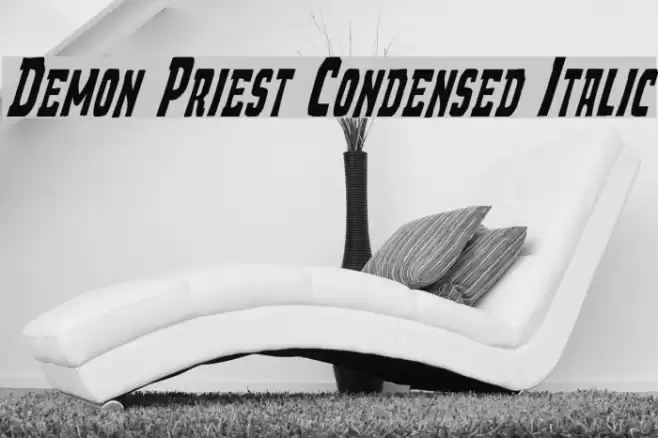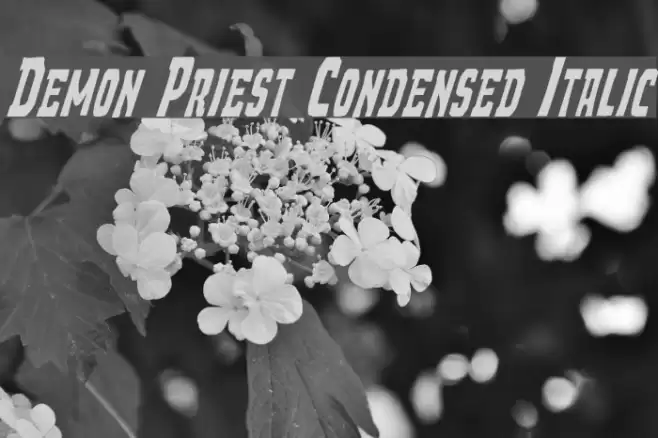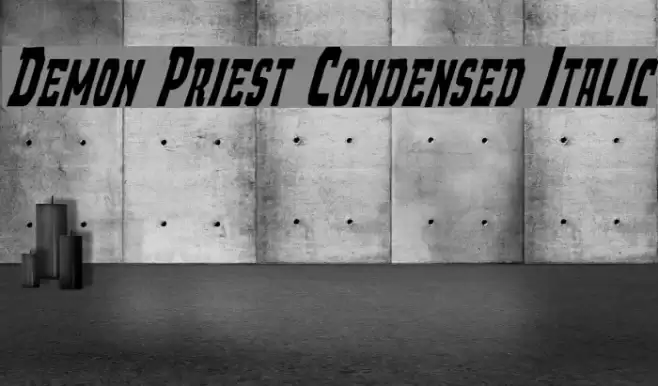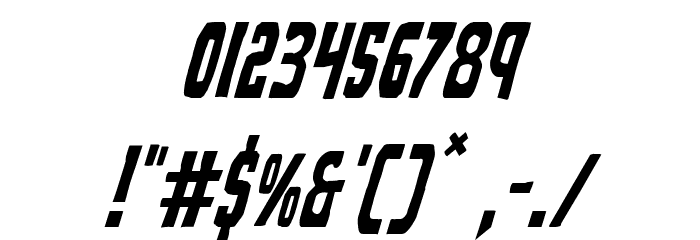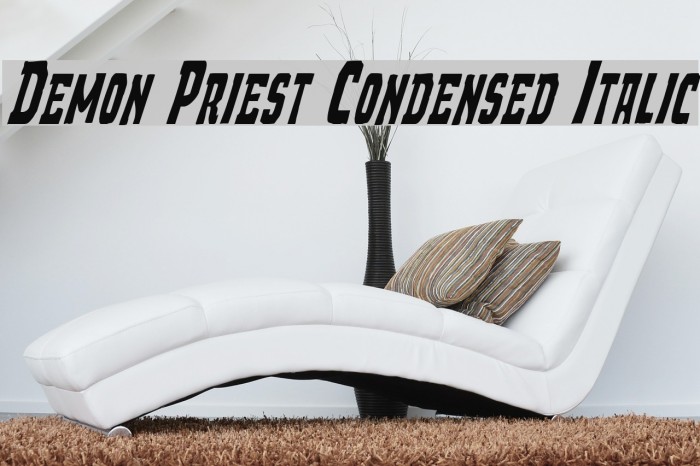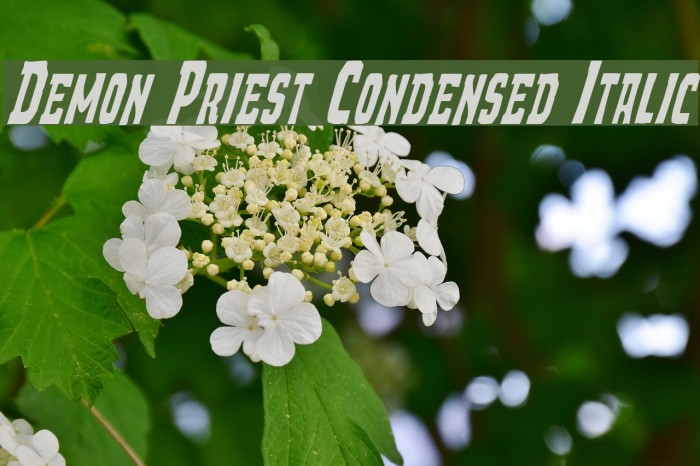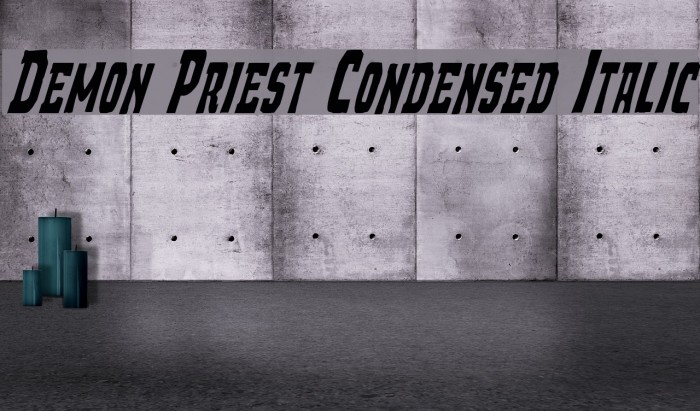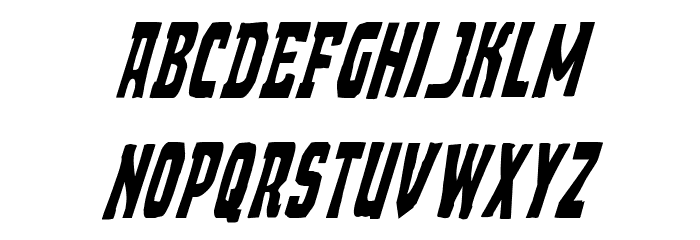
Demon Priest Condensed Italic Font
Demon Priest Condensed Italic Description
This font features a bold and dynamic style with a condensed and italicized form. The characters are sharply angled, giving a sense of movement and energy. The uppercase letters are particularly striking, with a strong presence that commands attention. The lowercase letters maintain the same boldness, ensuring consistency throughout the text. Numbers and special characters are designed with the same angular and bold characteristics, making them stand out. This font is ideal for projects that require a strong visual impact, such as posters or branding materials.
A bold, condensed, and italicized font with dynamic angles from Uncategorized fonts.
- Proposed Projects: Ideal for posters, branding, and any project needing a strong visual impact.
- Character Spacing: Tight